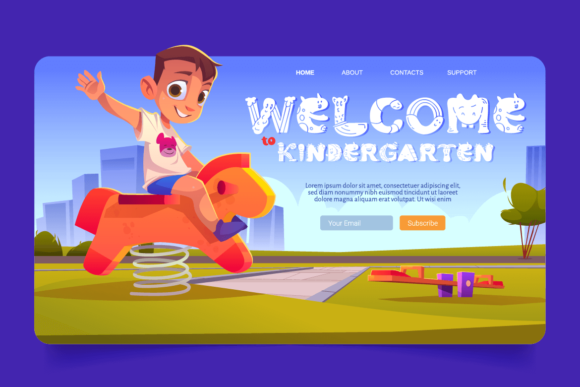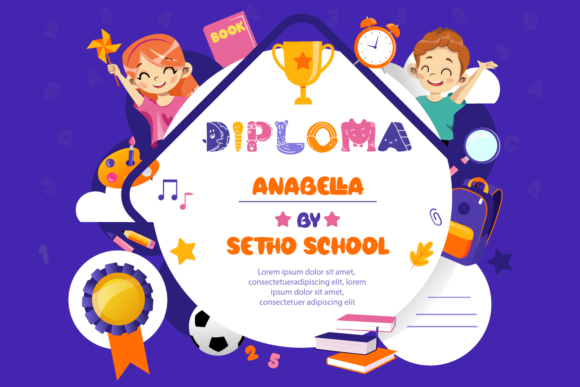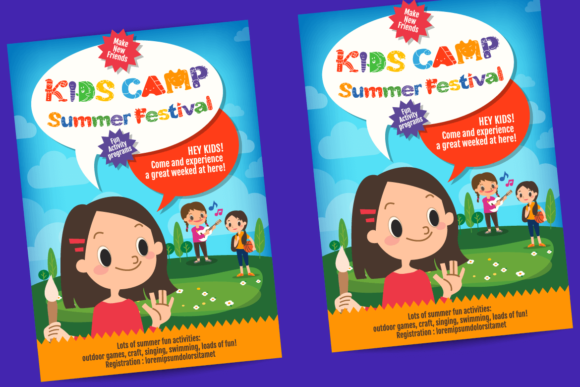
Introduction to Playtoon Font
Playtoon is a cool and quirky decorative font.
It embodies playfulness and authenticity and is the perfect choice for any children activity or school project .
Why Choose Playtoon Font?
Playtoon Font offers exceptional quality and versatility, making it a valuable addition to your design toolkit. Whether you’re creating for personal projects or commercial use, Playtoon Font delivers professional results.